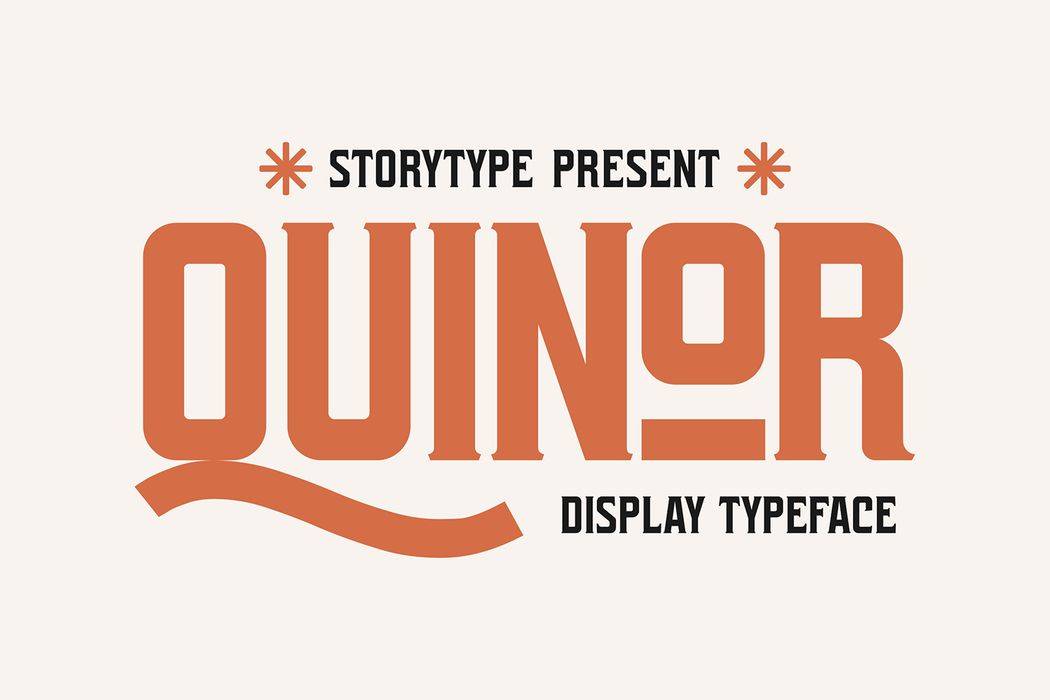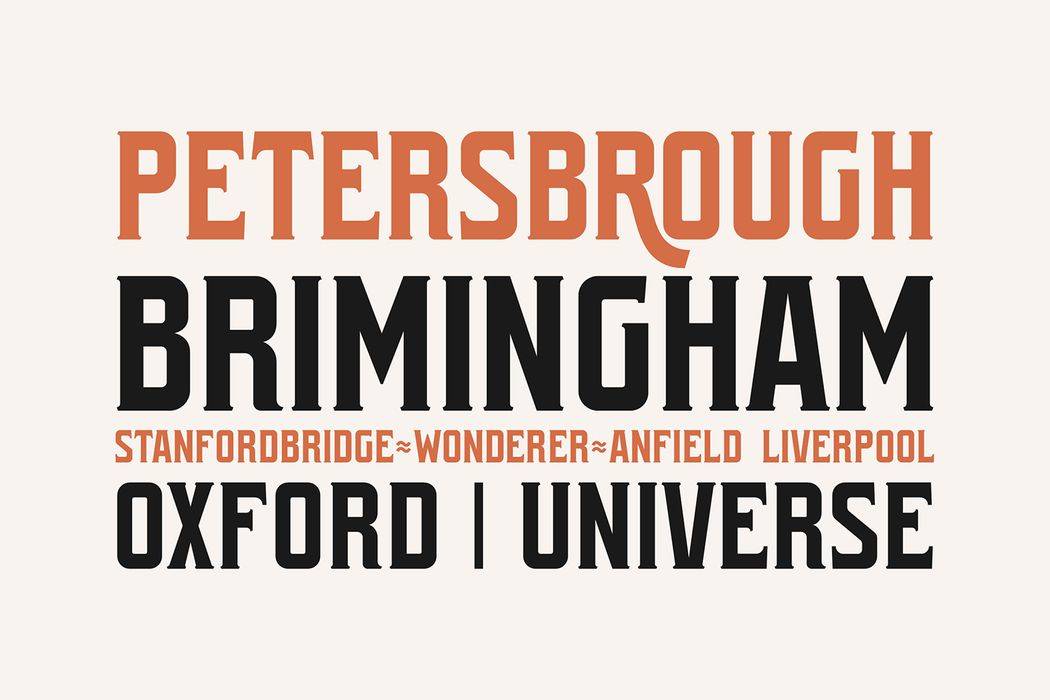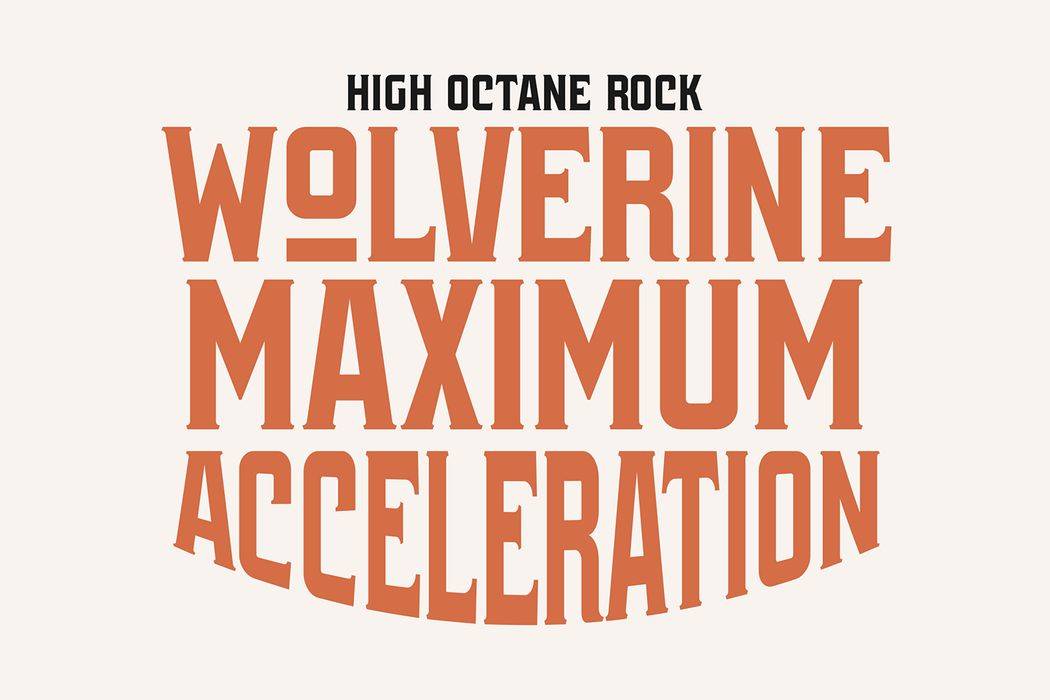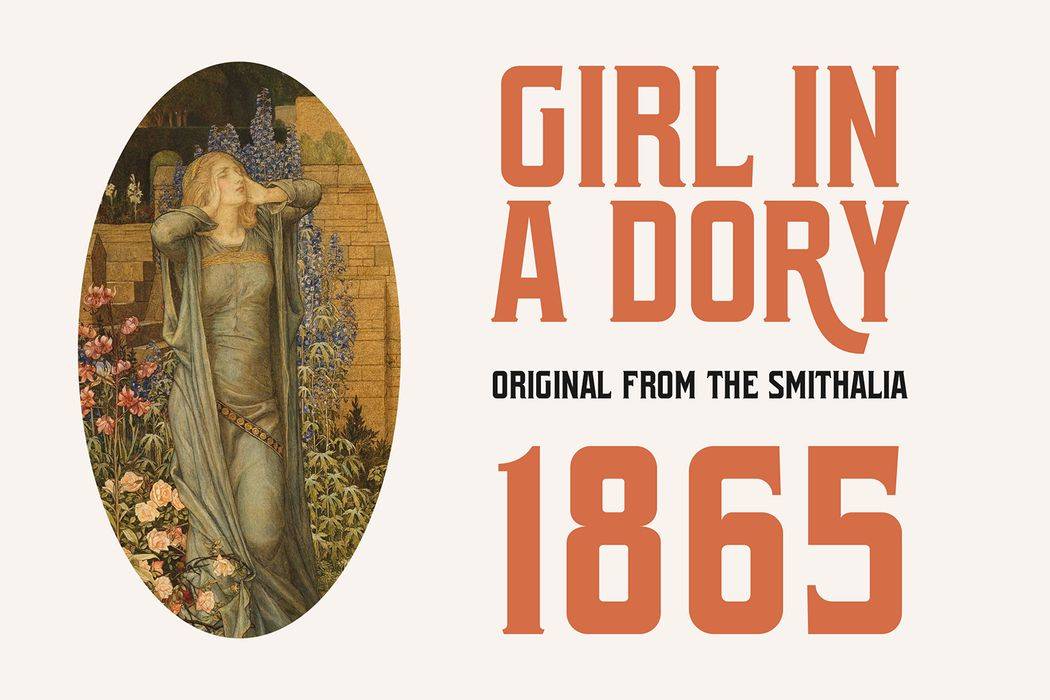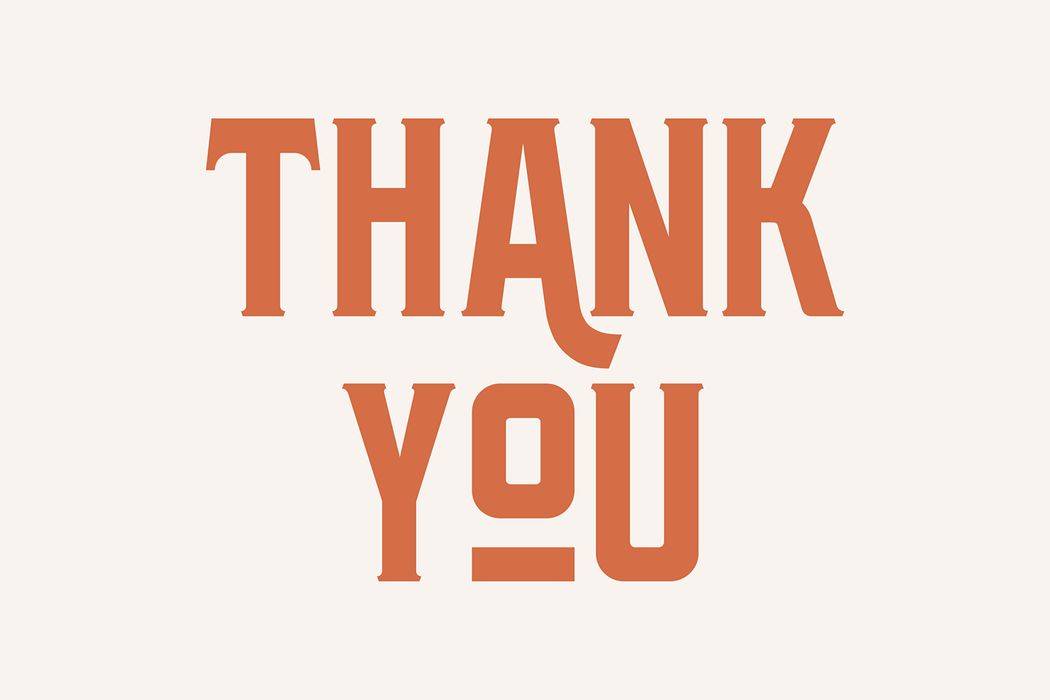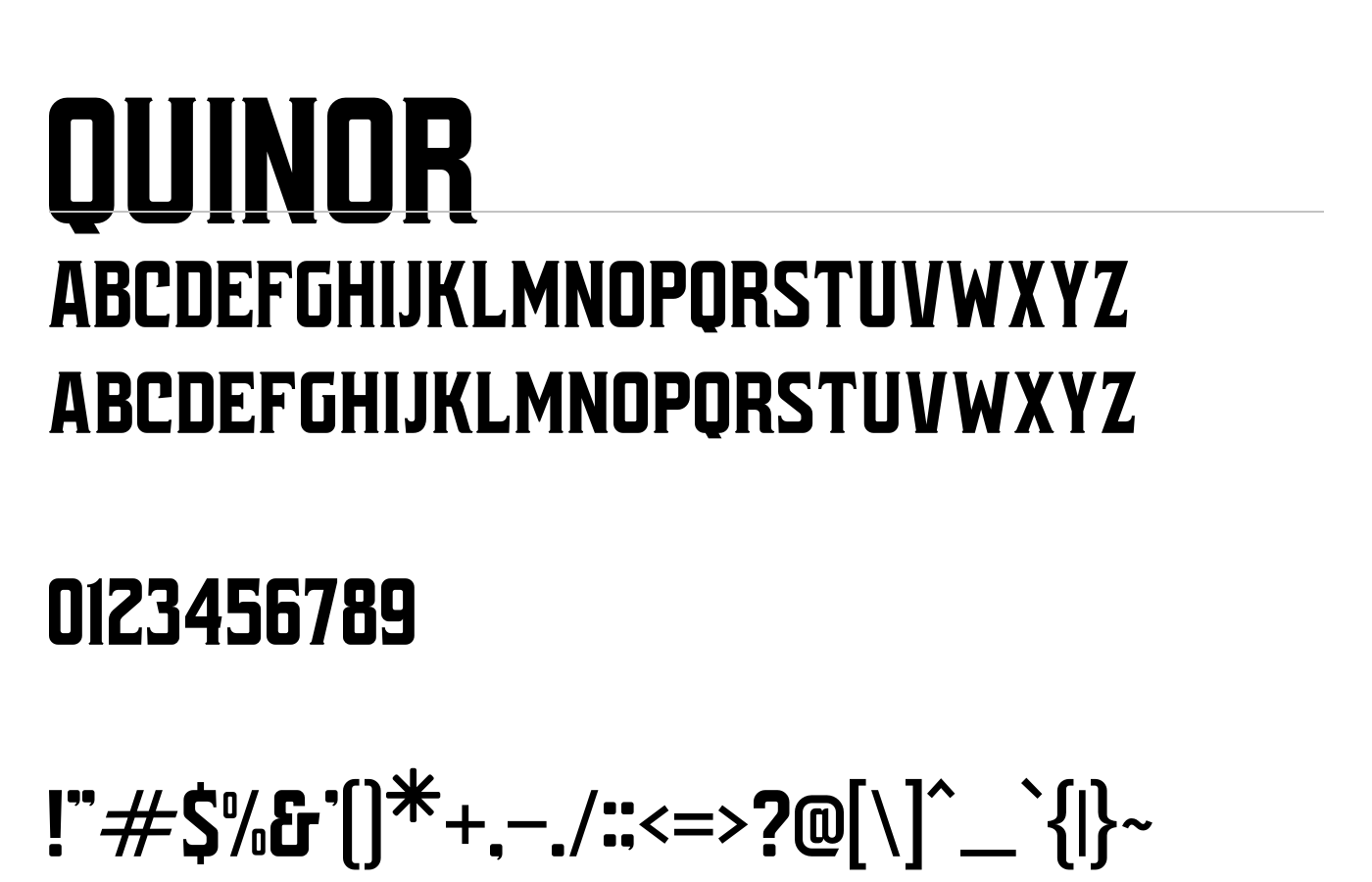
Quinior is a bold, condensed slab serif font with a strong presence and industrial character. Its high contrast, sharp edges, and tall, narrow letterforms convey a modern yet vintage feel, making it ideal for striking headlines, logos, and branding that require a bold, confident statement. This font works best in display contexts where its distinctive style can shine, especially for brands seeking a blend of classic toughness and contemporary style.
Quinior Font
About Quinior Font